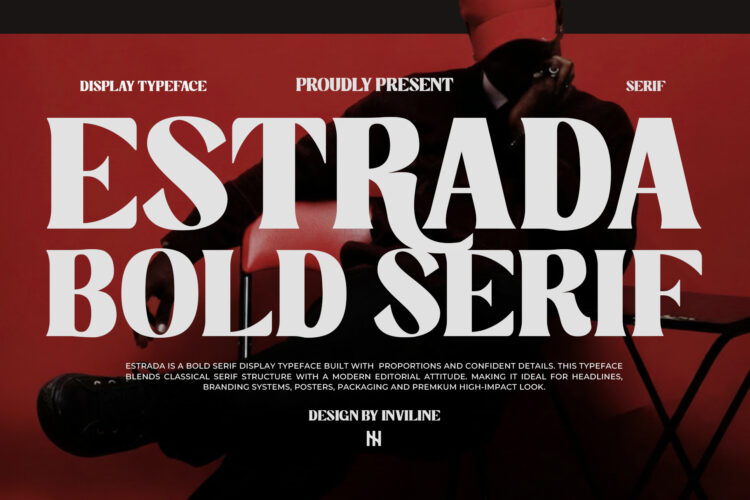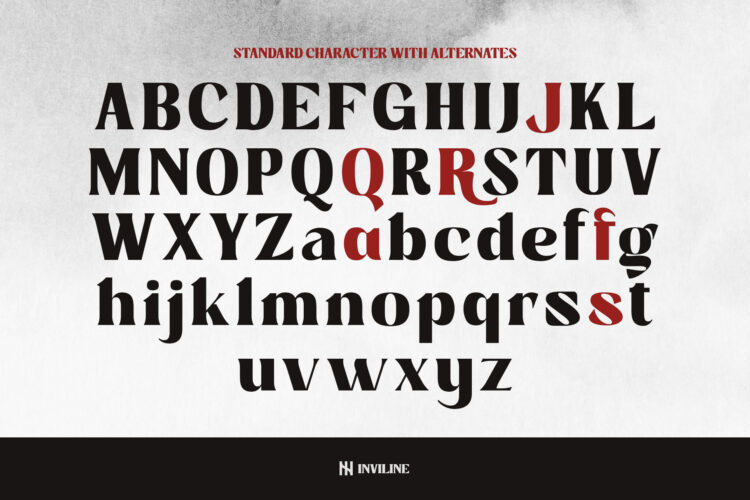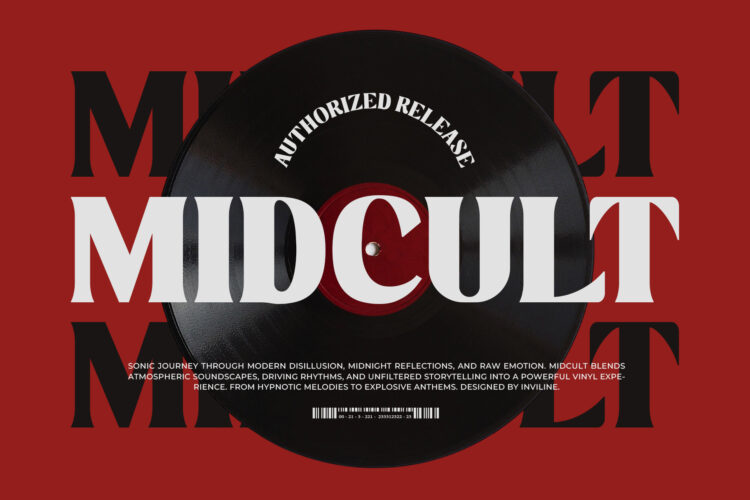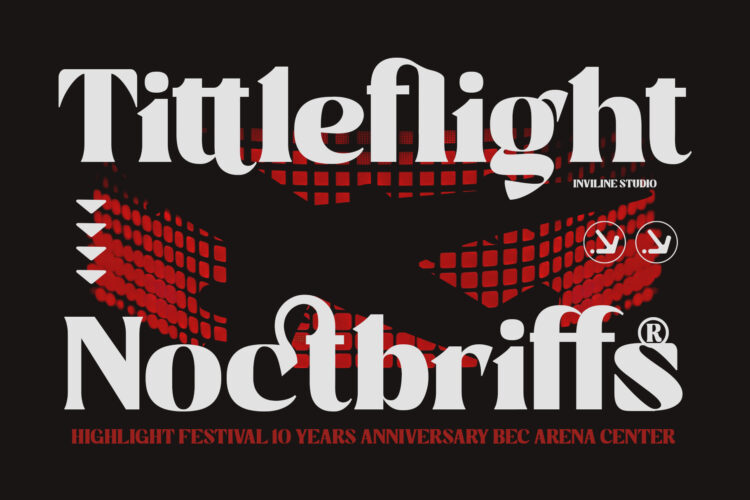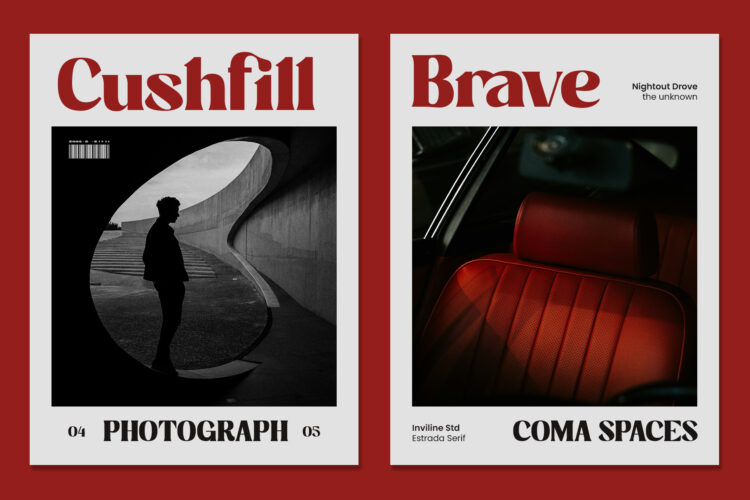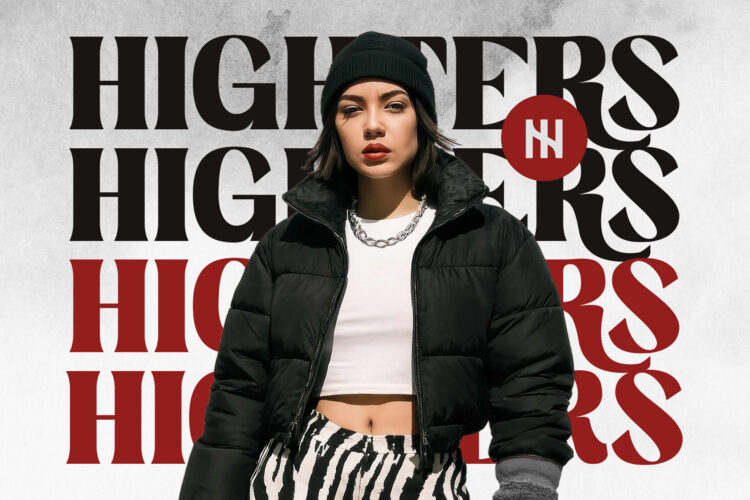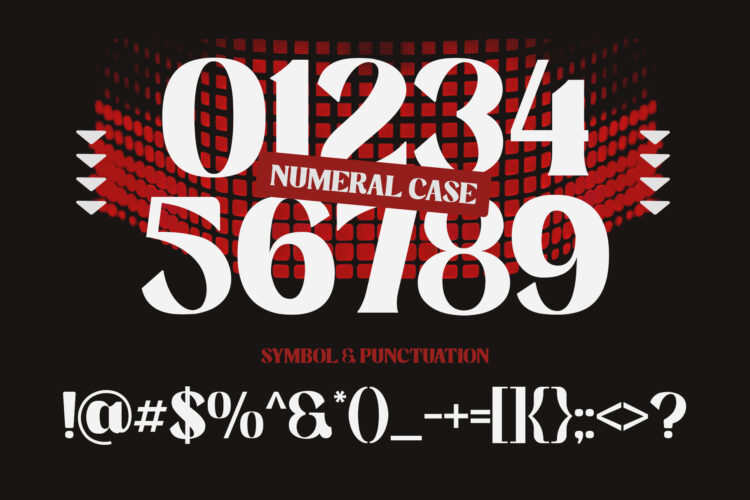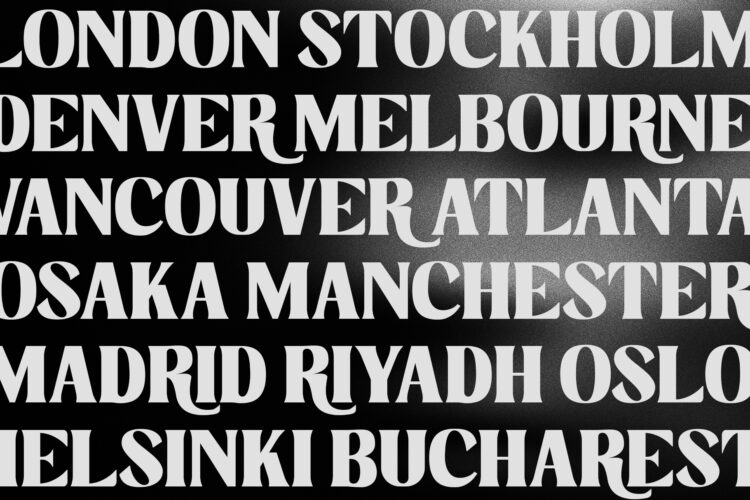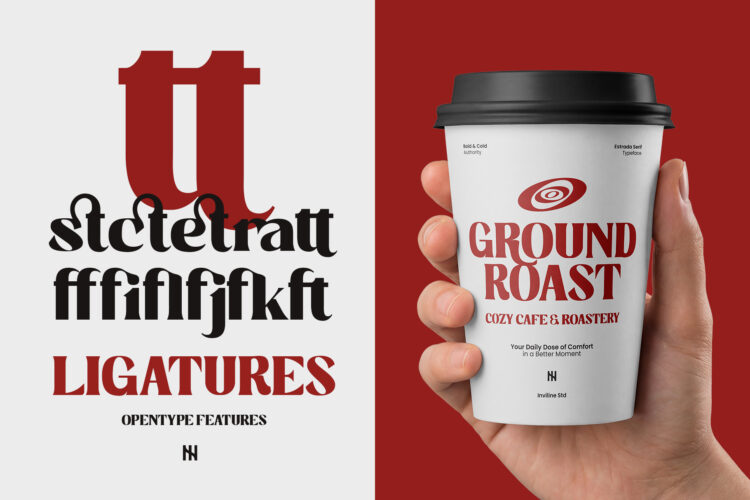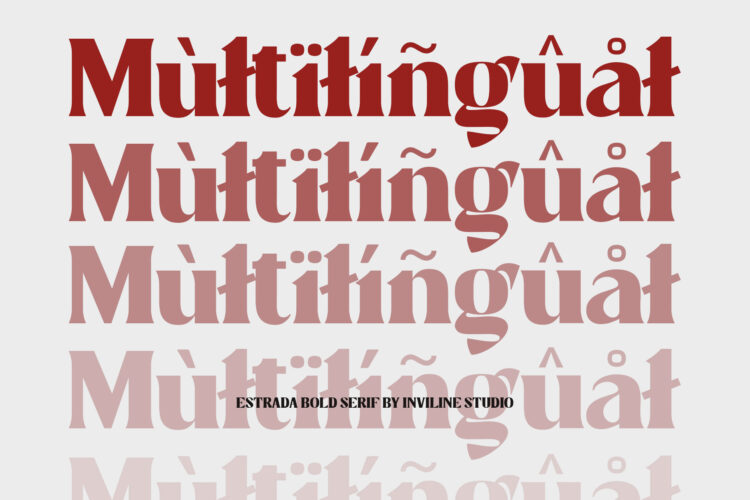
Estrada – Serif Font
Estrada is a bold serif display font with strong proportions, elegant alternates, and powerful ligatures. Designed for clarity and impact, Estrada brings sophistication to headlines, branding, and editorial work. With its confident letterforms and OpenType features, Estrada is ideal for premium visuals and timeless layouts. Add bold personality and refinement to your next design project with Estrada.